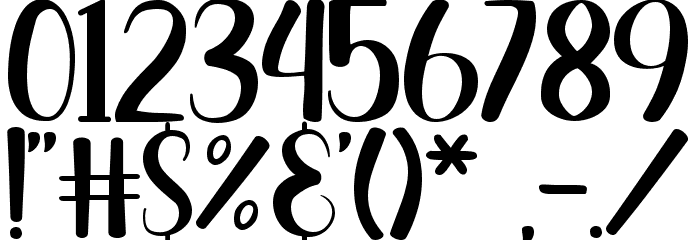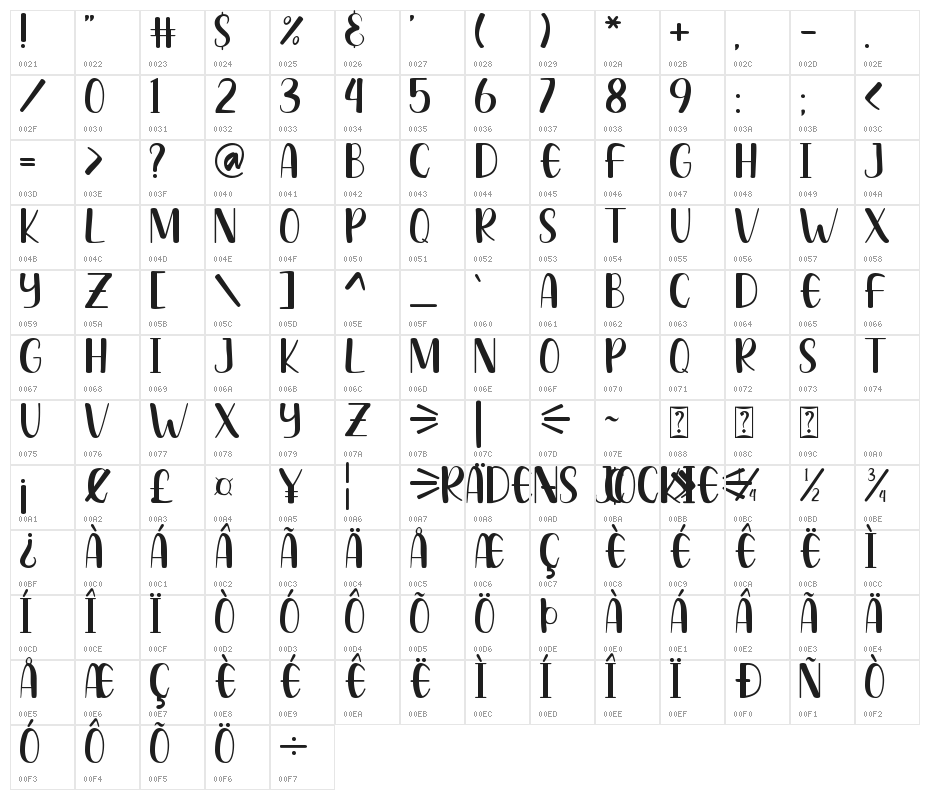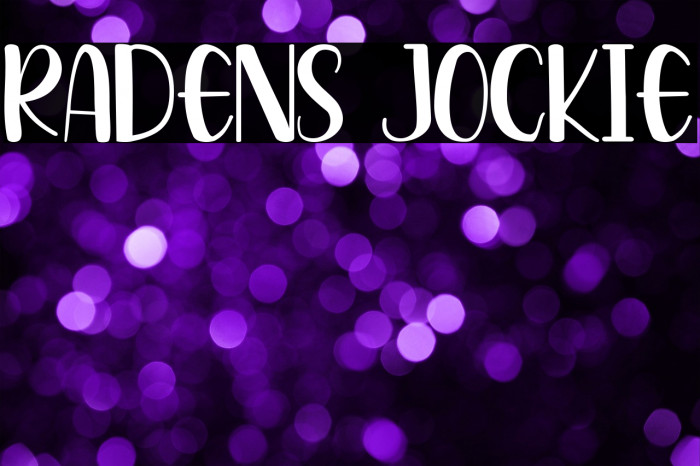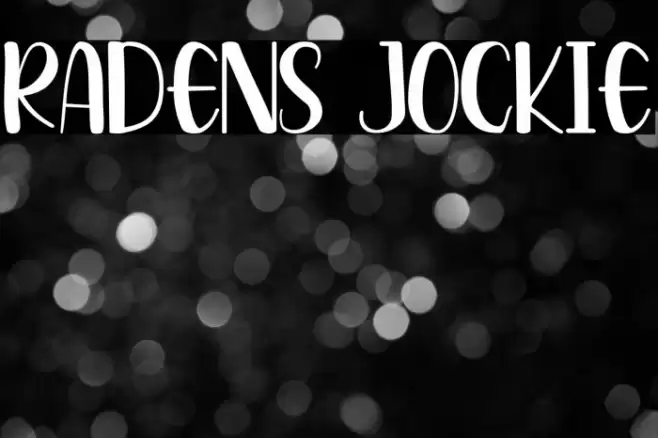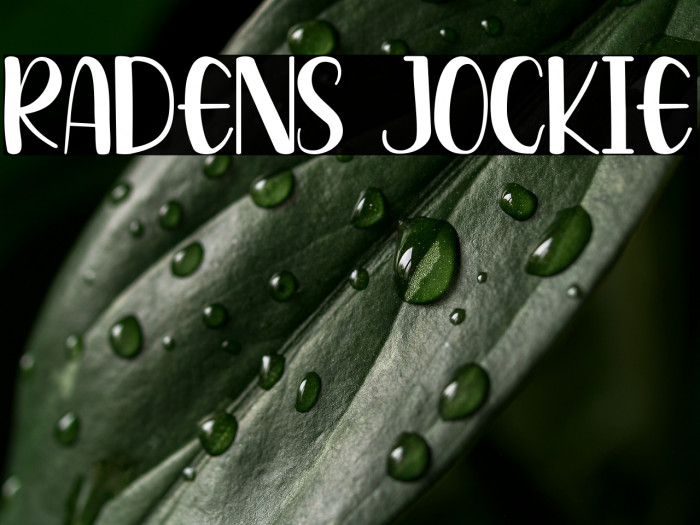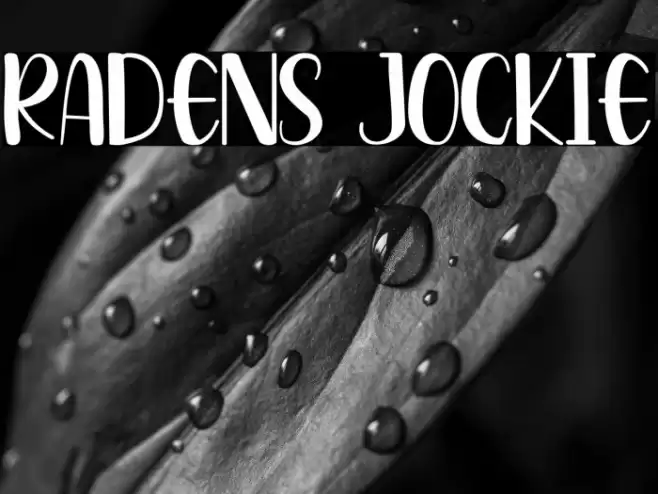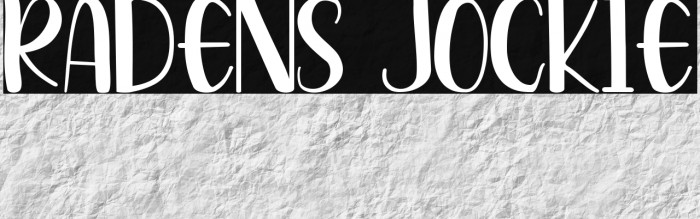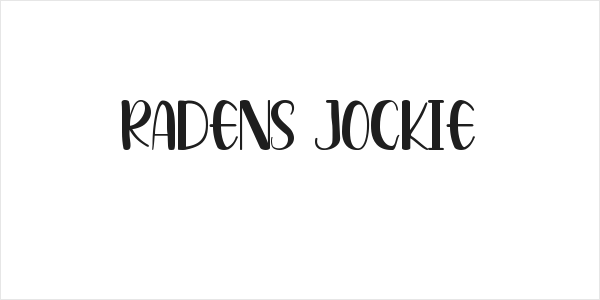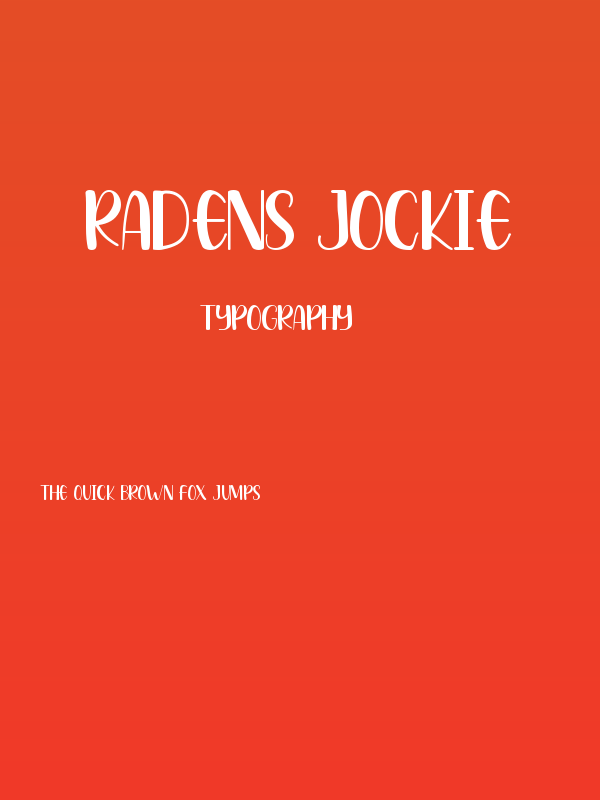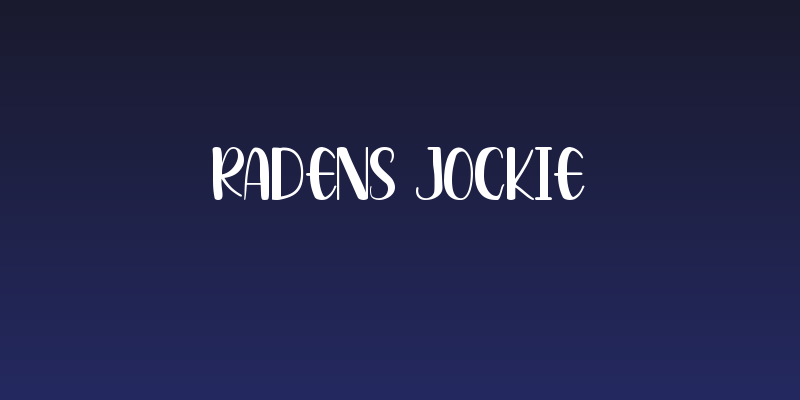
Radens Jockie Font
Radens Jockie Description
This font features a playful and energetic style with a handwritten appearance. The characters are bold and slightly condensed, giving a lively and dynamic feel. The uppercase and lowercase letters maintain a consistent flow, with rounded edges and a slight slant that adds to the casual aesthetic. The numbers and special characters are designed to match the overall style, ensuring a cohesive look across all text. This font's unique personality makes it ideal for projects that require a touch of creativity and fun.
Overall StylePlayful
Proposed ProjectsIdeal for greeting cards, children's books, playful branding, and creative posters.